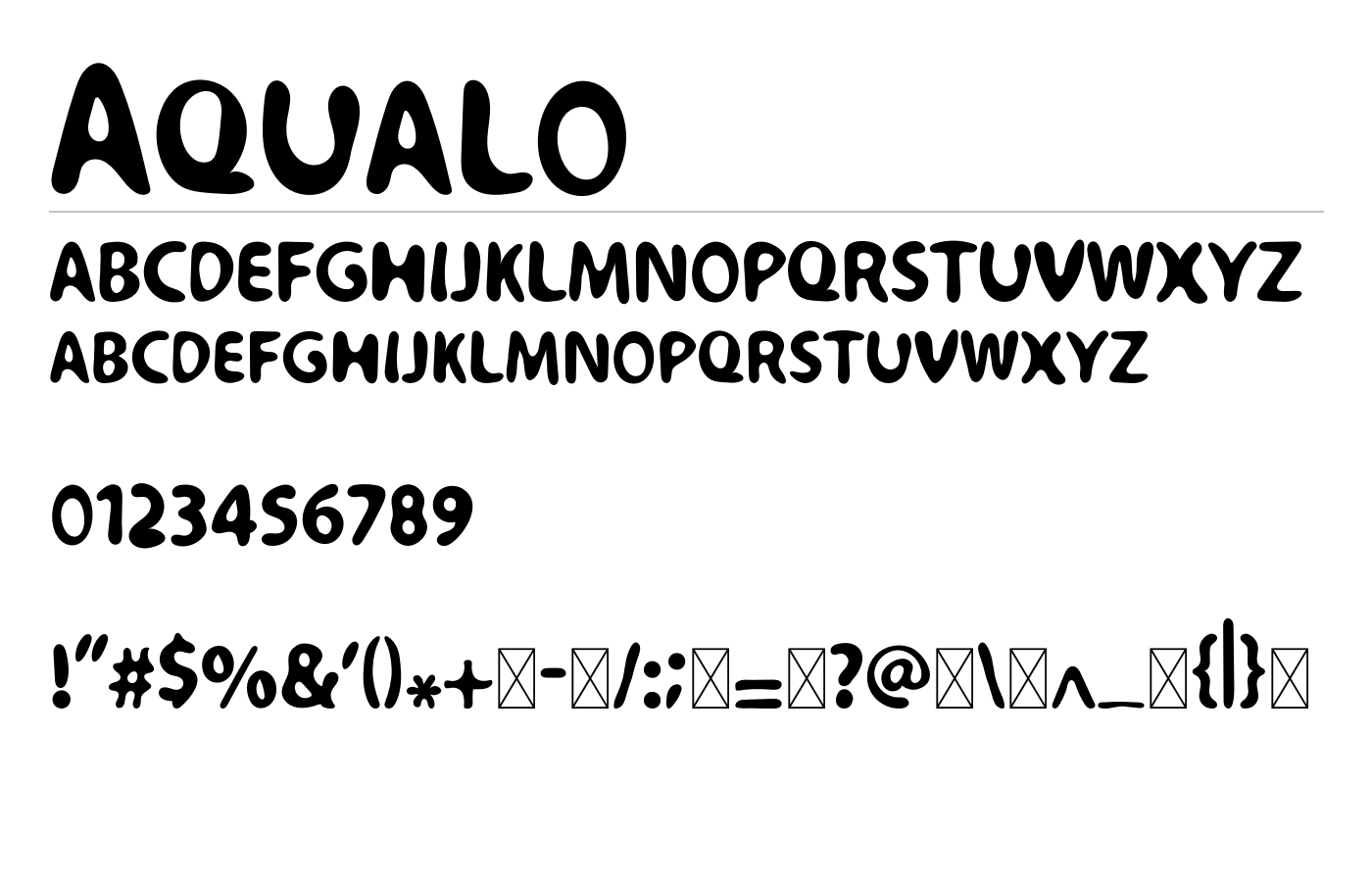
Aqualo is a playful, bold sans-serif font with rounded, organic shapes that give it a friendly and approachable feel. Its thick strokes and high x-height make it highly legible, while the irregular curves add a hand-drawn, casual character perfect for informal branding, children's products, or creative projects. This font works best in headlines, logos, and playful designs where a fun and energetic vibe is desired.
Aqualo Font